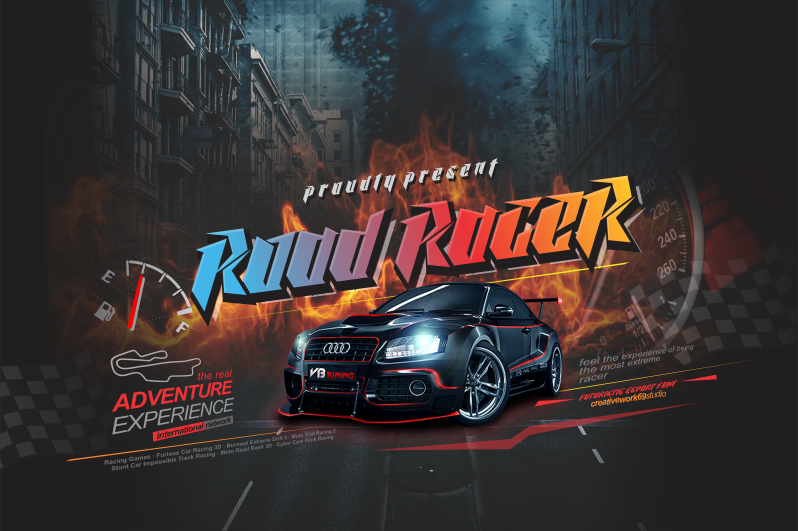
Preview and download Road Racer Font. Created by Daddi Daryawan in Gothic Modern styles with Demo license.
Road Racer is an esport style font that has a sporty character, very suitable for automotive design projects, sports and all products with a dynamic character. COMMERCIAL USE : https://www.creativework69.net (Official Website) or https://www.creativefabrica.com/product/road-racer/ref/181749/ Email: creativework69@yahoo.com Note of the author ENGLISH: Be very careful and take the time to read any and all documentation before deciding to use a font commercially. Ignorance is not an excuse for breaking the law. By installing or using this font, you are hereby agree to this Product Usage Agreement: 1. This font is ONLY FOR PERSONAL USE 2. NO COMMERCIAL USE ALLOWED 3. You are REQUIRES A LICENSE for PROMOTIONAL or COMMERCIAL USE 4. CONTACT ME before any Promotional or Commercial Use EMAIL SUPPORT: creativework69@yahoo.com More... |